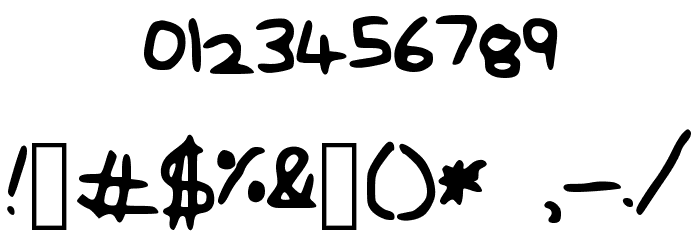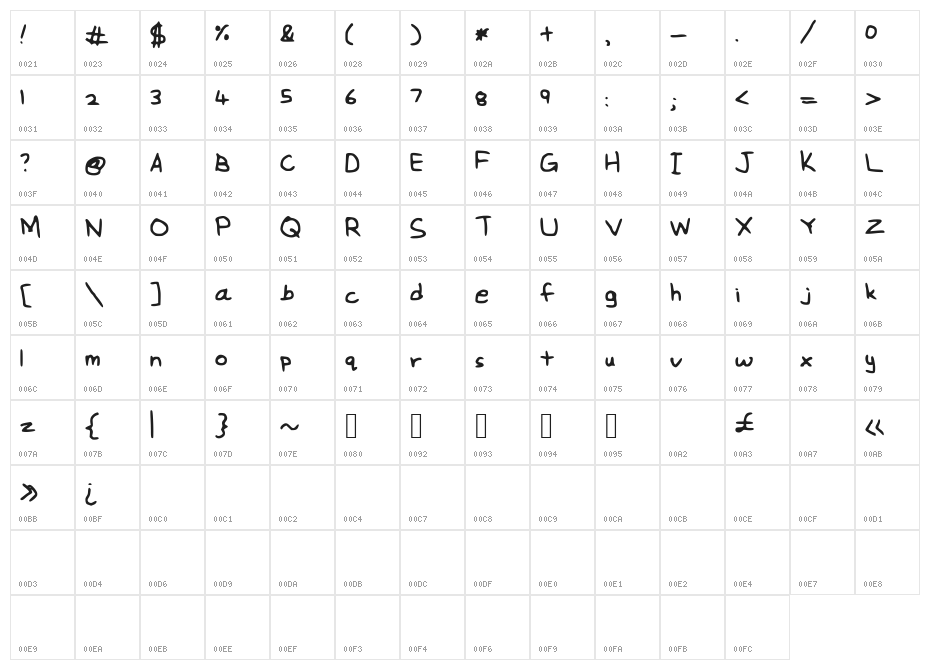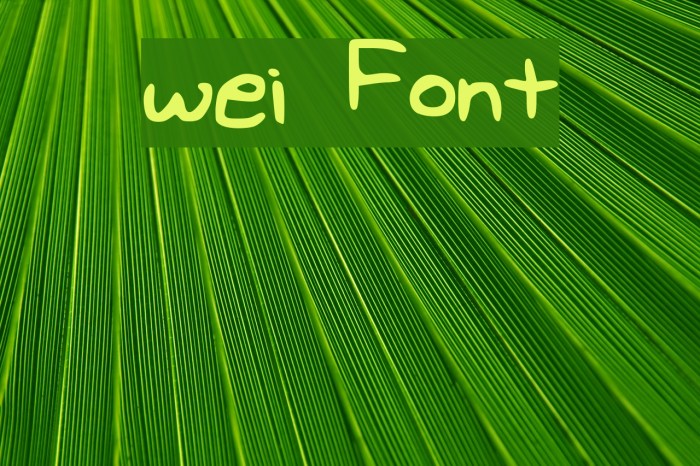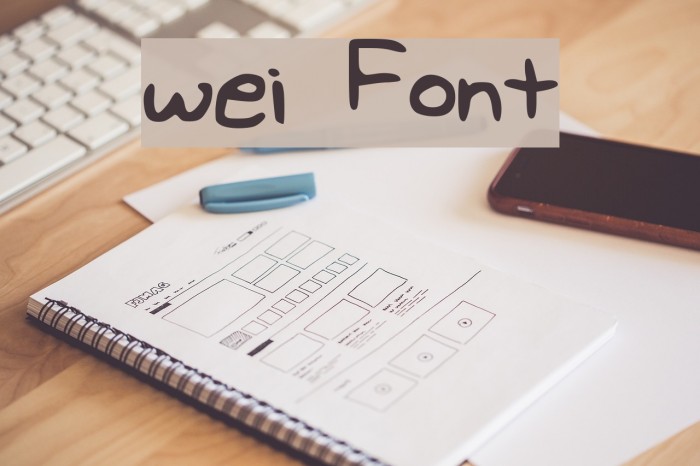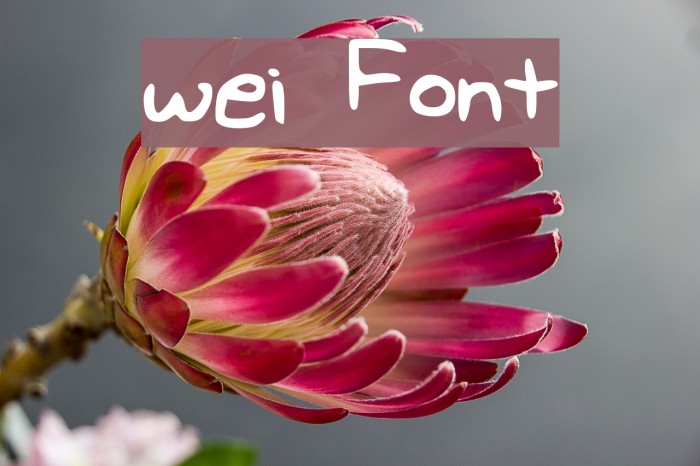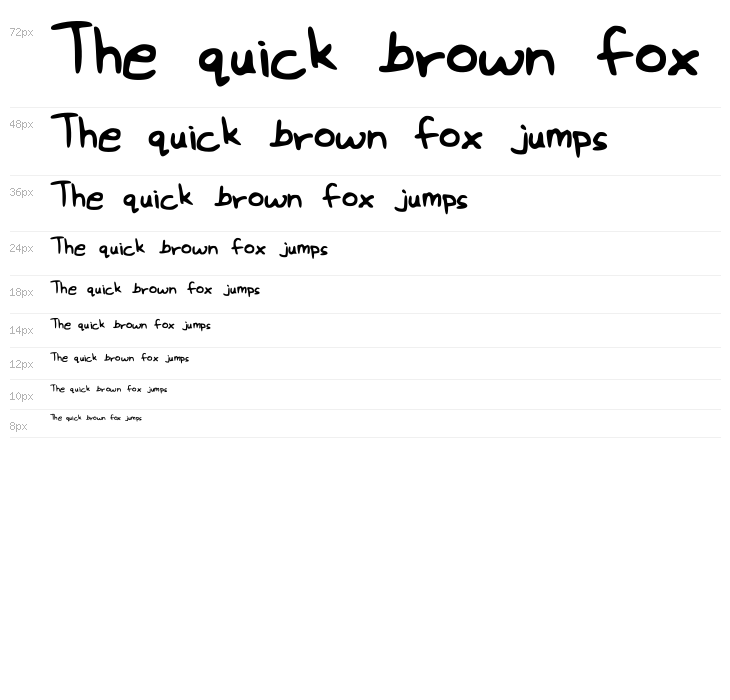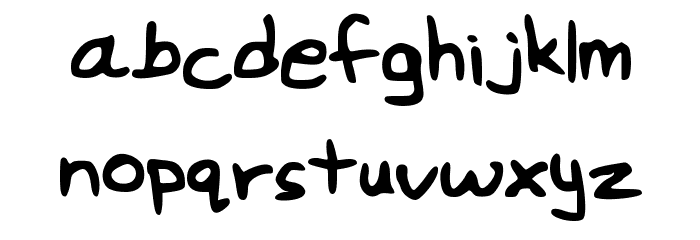
wei Font
wei Description
This font exudes a playful and casual handwritten style, characterized by its rounded and slightly irregular letterforms. The strokes are consistent in thickness, giving it a uniform appearance while maintaining a lively and informal vibe. The uppercase and lowercase letters are well-balanced, with a slight tilt that adds to its whimsical charm. The numerals and special characters follow the same playful aesthetic, making it suitable for projects that require a personal touch. Its simplicity and readability make it versatile for various design applications.
| Use Case | Headlines, Informal text, Branding |
| Proposed Projects | Ideal for children's books, greeting cards, casual invitations, and playful branding projects. |